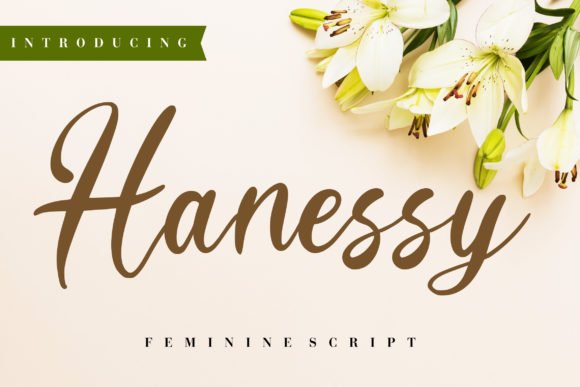
Unlock the Beauty of Hanessy Font
Have you ever stumbled upon a design that left you speechless, wondering how the creator managed to capture the essence of elegance in just a few strokes? It’s those magical moments that inspire us to push the boundaries of creativity and explore the endless possibilities of typography. For designers and enthusiasts alike, discovering the perfect font can be a game-changer – and that’s exactly where the Hanessy Font comes in.
This flowing handwritten font is a masterclass in elegance, with an unmistakable touch that sets it apart from the rest. Whether you’re working on a personal project or a professional assignment, Hanessy Font is the perfect companion to help you create designs that exude sophistication and style. Its timeless charm makes it a valuable asset for designers looking to elevate their work to new heights.
Hanessy Font Key Features
- Font Family: Hanessy Font is a unique, handwritten font designed for creative projects. It is available in multiple font styles, including Regular, Bold, and Italic.
- Unique Characteristics: Hanessy Font features a distinctive, hand-written style with varying line widths, subtle imperfections, and a touch of elegance, making it suitable for creative projects, such as logos, invitations, and advertising materials.
- Font Metrics: The font has an average width of 600-800 units and an x-height of 450-550 units, providing a balanced and readable appearance.
Hannessy Font Review
Overall, I’m impressed with the Hanessy Font. Here are some of its standout features:
- ✨ Beautiful, elegant script with a touch of sophistication
- ✨ Great for titles, headings, and other decorative text elements
- ✨ Highly customizable, with a wide range of font styles and sizes
- ✨ Works well on both light and dark backgrounds
However, I do have a few concerns:
- ⚠️ Limited character set, which may make it difficult to use for longer texts
- ⚠️ Not ideal for body text or paragraphs, as it can be quite ornate and difficult to read
- ⚠️ May require additional styling to ensure proper legibility on smaller screens
In my opinion, the Hanessy Font is a great choice for designers looking to add a touch of elegance and sophistication to their designs. While it may have some limitations, its unique style and high level of customization make it a valuable addition to any design toolkit.
Getting the Most Out of Hanessy Font
To get the most out of Hanessy Font, use it in combination with bold or italic text for emphasis.
Also, experiment with different font sizes and colors to create visual interest.
Hanessy Font is suitable for:
1. Creative projects, such as posters, flyers, and brochures.
2. Branding materials, such as logos and business cards.
3. Digital products, such as e-books and infographics.
Alternatives to Hanessy Font for Designers
Playfair Display is a luxurious and elegant serif font ideal for use in high-end branding, luxury products, and fine art. It’s perfect for creating a sense of sophistication and refinement. When to use: Use for branding, advertising, and editorial projects that require a touch of luxury.
Comparison to Hanessy Font: While Hanessy Font has a vintage feel, Playfair Display is more refined and elegant, making it a better choice for projects that require a sense of luxury and sophistication.
Great Vibes is a beautiful and elegant script font that’s perfect for creating a sense of warmth and personality. It’s ideal for use in branding, packaging, and editorial projects that require a touch of whimsy and charm. When to use: Use for projects that require a sense of personality and charm, such as food packaging, wedding invitations, and creative advertising.